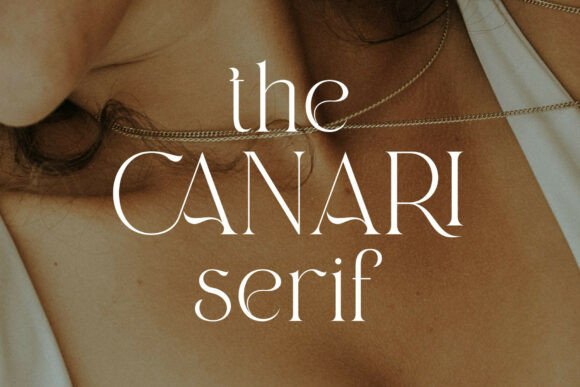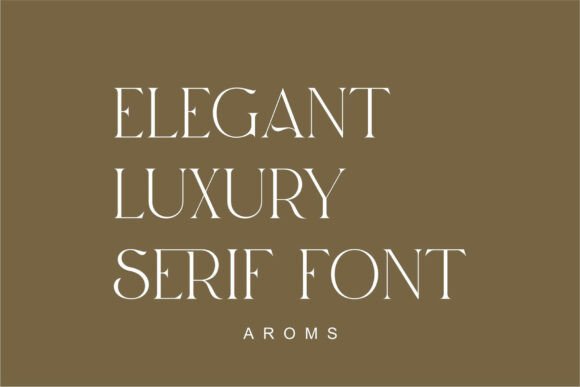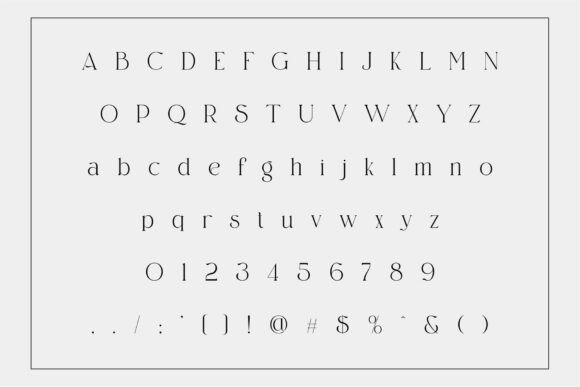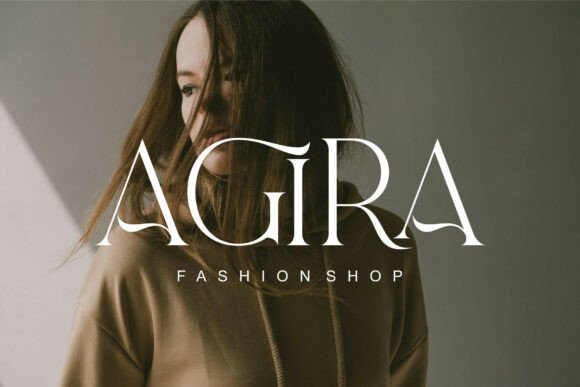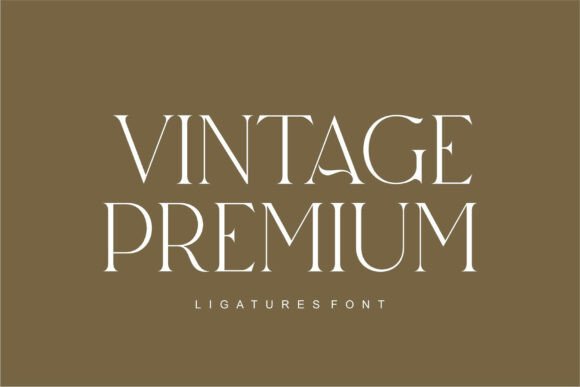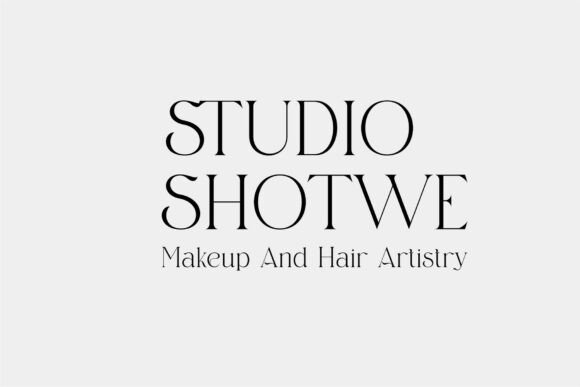
Introducing Aroms Font: Elevate Your Designs with Elegance and Style
In the world of typography, a font can make or break a design. For designers and crafters looking for a modern and stylish serif font, Aroms Font is an excellent choice. With its sleek design and ligature features, Aroms has quickly become a favorite among designers. In this article, we’ll explore the features and benefits of Aroms Font and why it’s the perfect choice for a wide range of design projects.
A Modern and Stylish Serif Font
Aroms Font is a modern serif font that exudes elegance and sophistication. Its clean lines, subtle curves, and precise letterforms make it perfect for designs that require a touch of class and refinement. Whether you’re working on a branding project, creating a logo, or designing a magazine, Aroms Font is sure to impress.
Ligature Features for Added Flair
One of the standout features of Aroms Font is its ligature features. Ligatures are special characters that combine two or more letters to create a unique and stylish effect. Aroms Font includes a range of ligatures that can add a touch of elegance and sophistication to your designs. From subtle flourishes to more dramatic connections, Aroms Font’s ligatures are sure to elevate your designs.
Elegant, Classy, and Stylish: The Perfect Choice for Designers
At its core, Aroms Font is designed to be elegant, classy, and stylish. Its modern design and ligature features make it perfect for designers who want to create high-end designs that stand out from the crowd. Whether you’re working on a cosmetics brand, a beauty product, or a luxury goods company, Aroms Font is the perfect choice.
Aroms Font is incredibly versatile and can be used for a wide range of design projects. Here are just a few examples of the types of projects that Aroms Font is perfect for:
- Cosmetics and beauty branding
- Logo design and wordmarks
- Magazines and publications
- Books and e-books
- Business cards and stationery
- Classy designs and luxury goods branding
- Newspapers and editorial design
Why Choose Aroms Font?
So why choose Aroms Font for your design projects? Here are just a few reasons:
- Unique and stylish design: Aroms Font has a unique and stylish design that’s sure to stand out from the crowd.
- Ligature features: Aroms Font includes a range of ligatures that can add a touch of elegance and sophistication to your designs.
- Elegant and classy: Aroms Font is designed to be elegant and classy, making it perfect for high-end designs.
- Versatile: Aroms Font can be used for a wide range of design projects, from branding and logos to magazines and books.
| Font Name | Aroms Font |
| Author | Design Joo |
In conclusion, Aroms Font is an excellent choice for designers and crafters looking for a modern and stylish serif font. With its sleek design, ligature features, and elegant style, Aroms Font is perfect for a wide range of design projects. Whether you’re working on a branding project, creating a logo, or designing a magazine, Aroms Font is sure to elevate the quality of your designs.